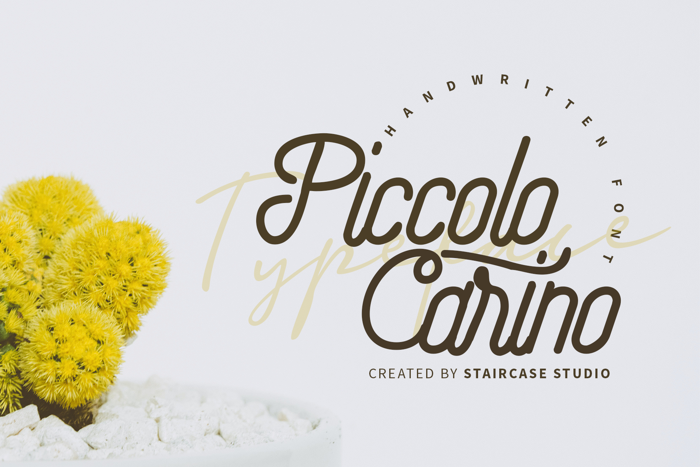
Piccolo Carino Font
Piccolo Carino with script style. A collection of letters and numbers suitable your projects also great for Logotype, Branding Design, Logo Design, Digital Lettering Arts, T-Shirt/Apparel, Poster, Magazine, Signs, Advertising Design, and any design needs.